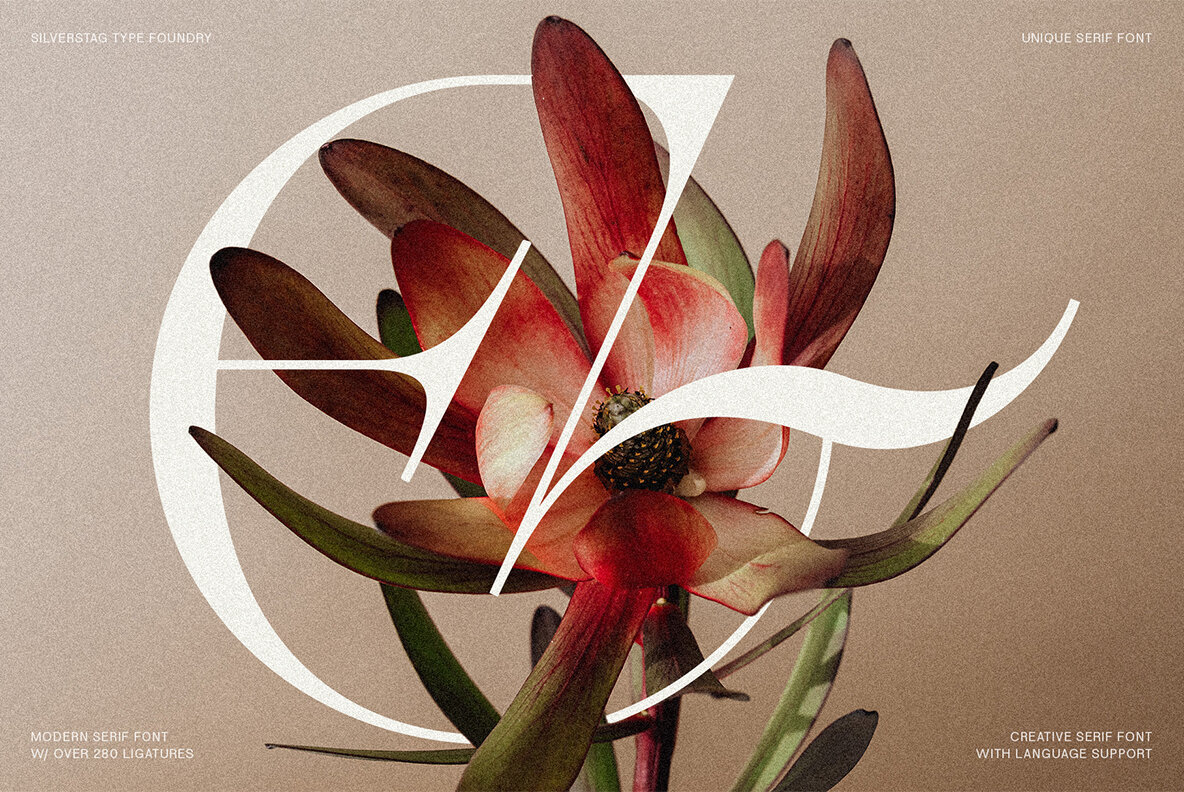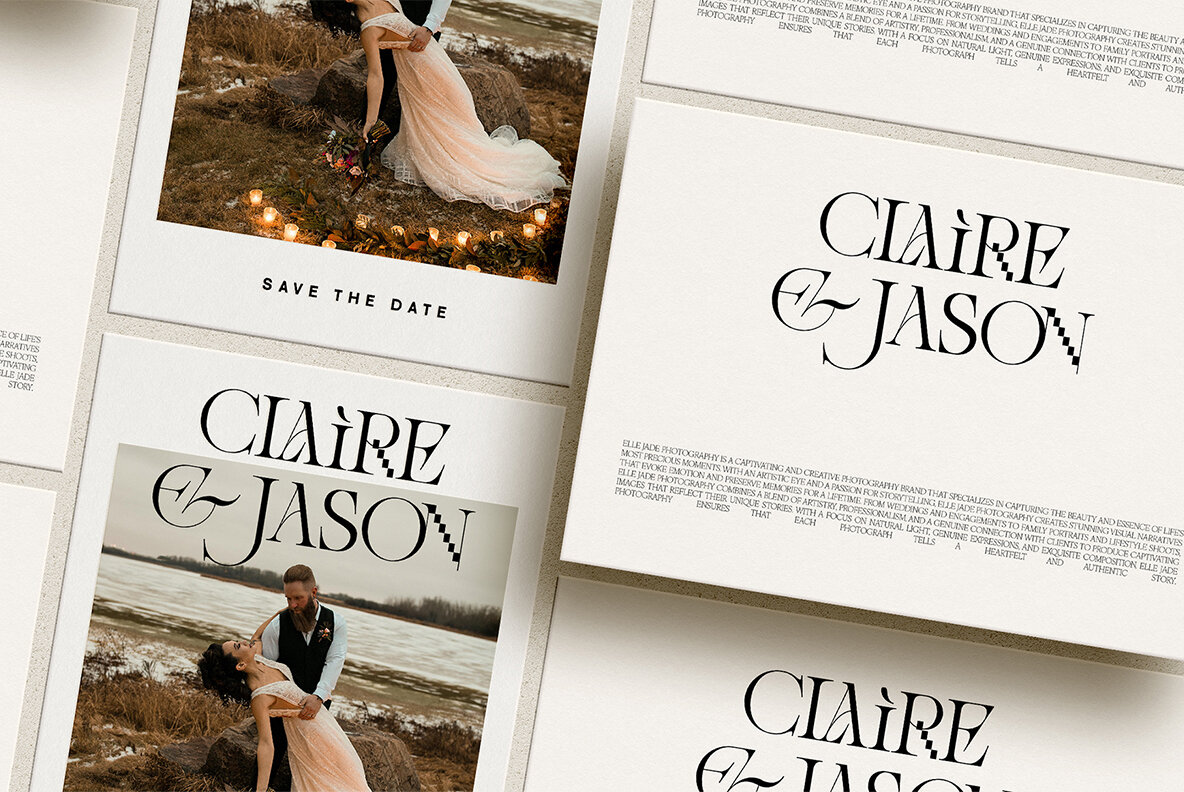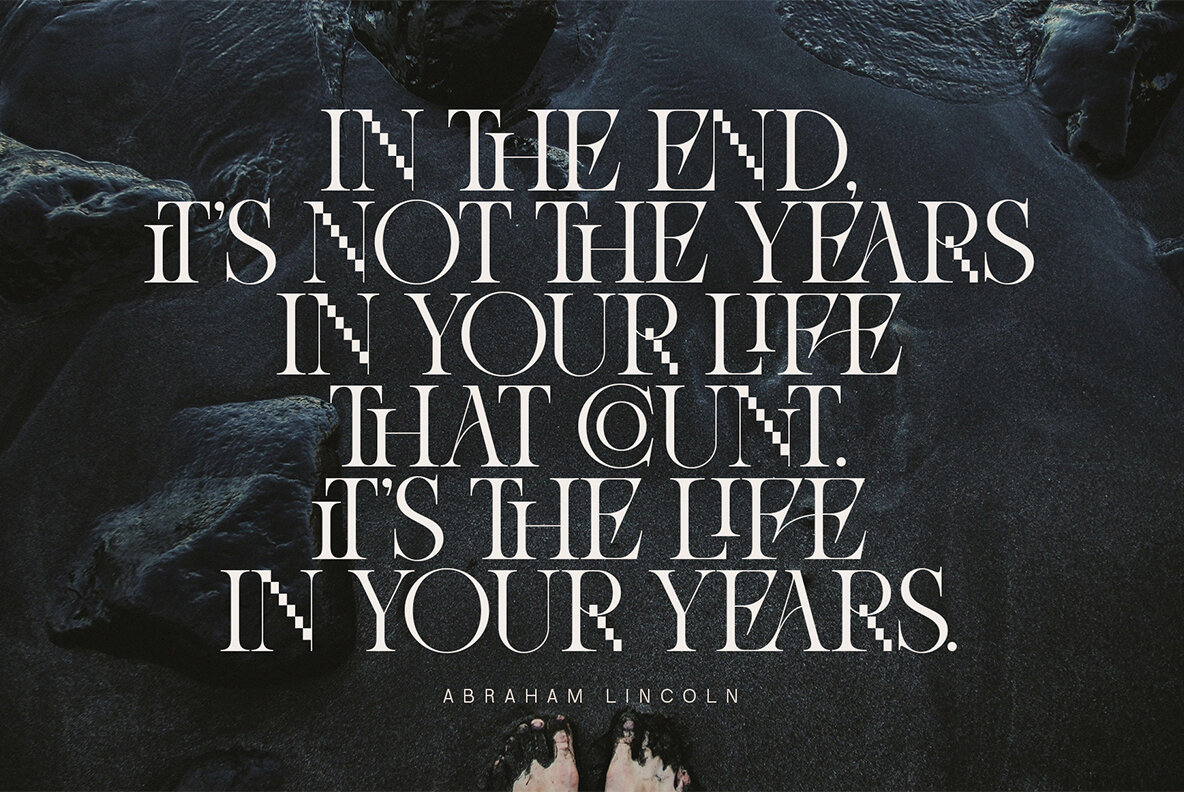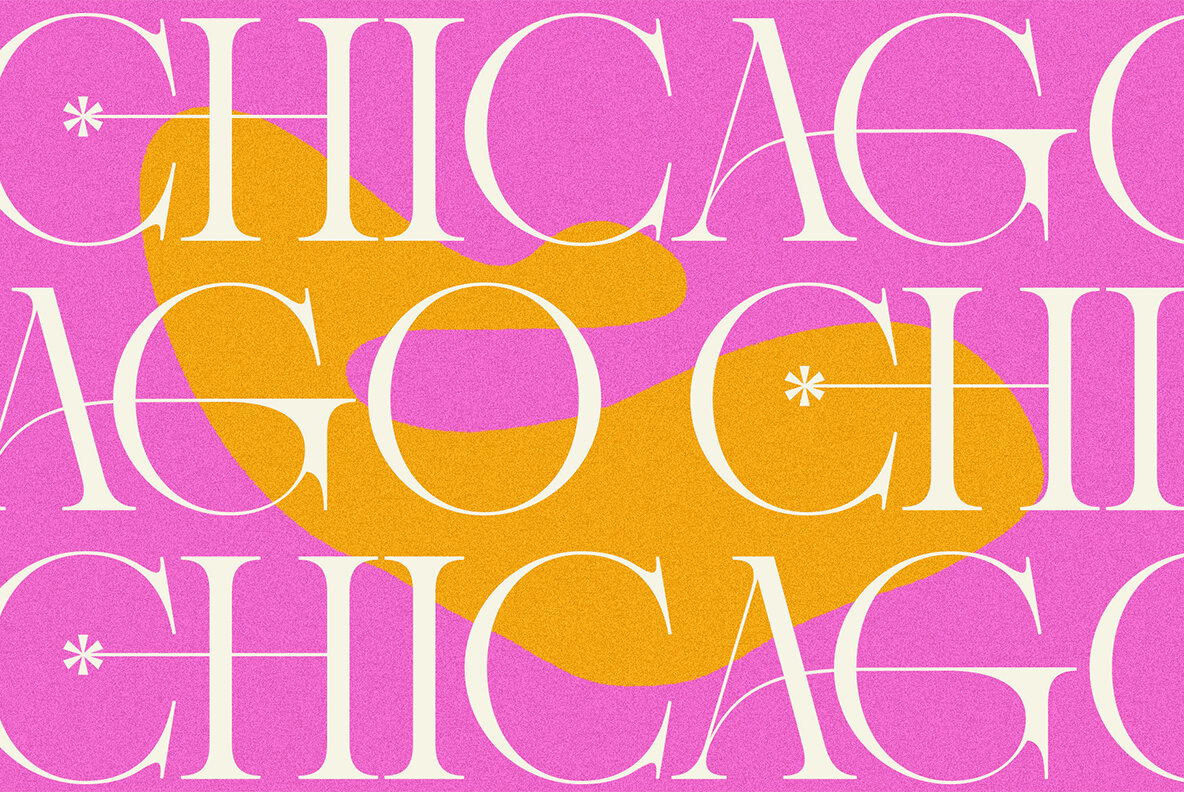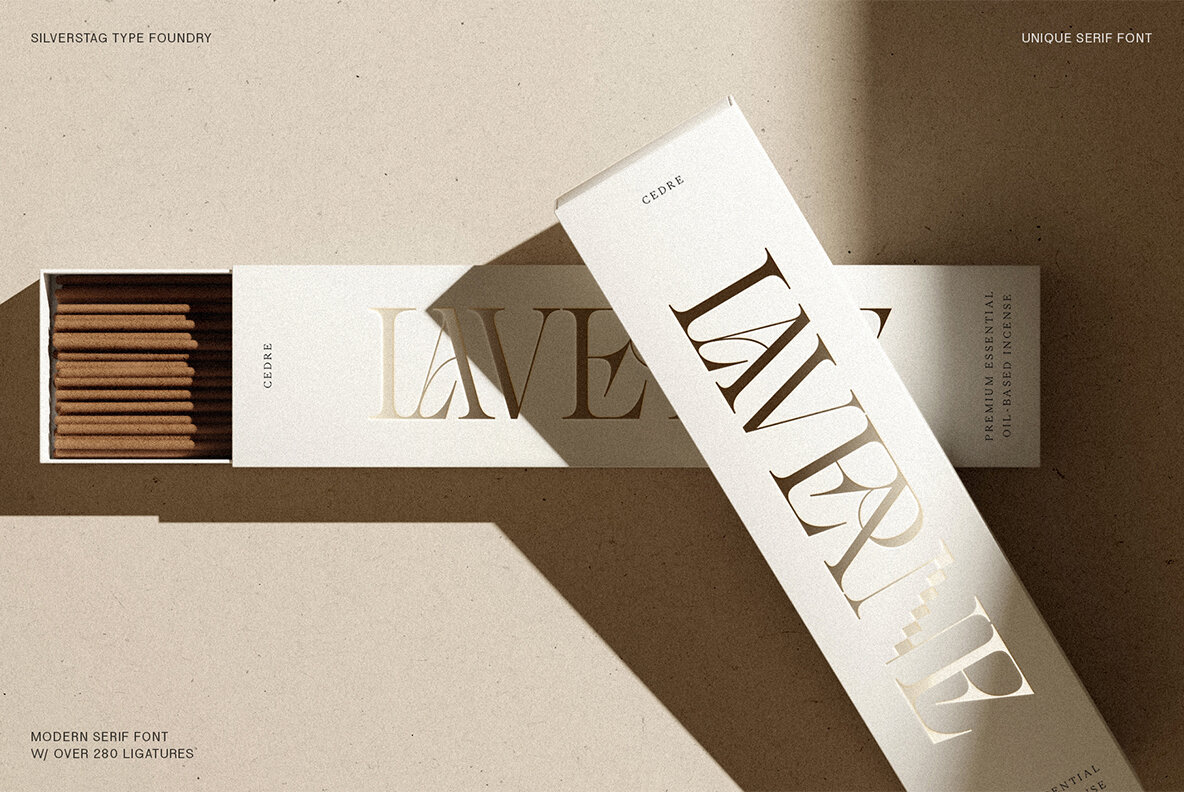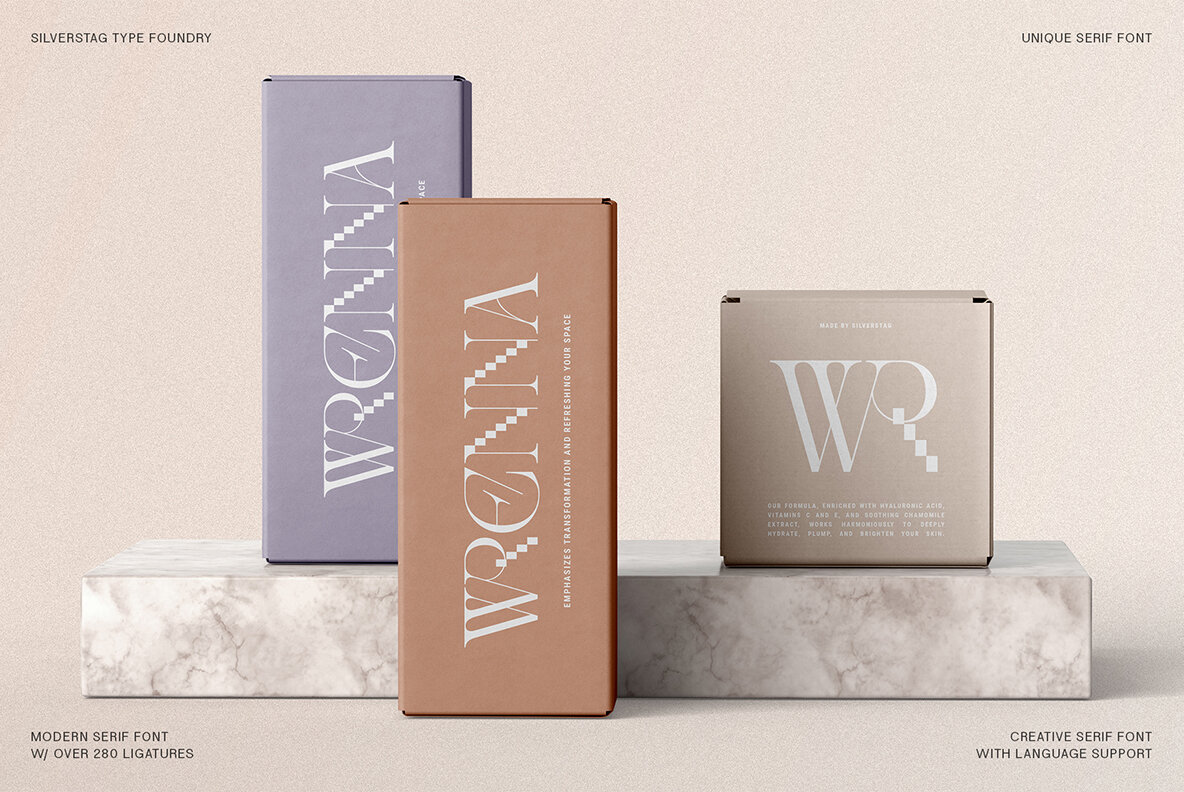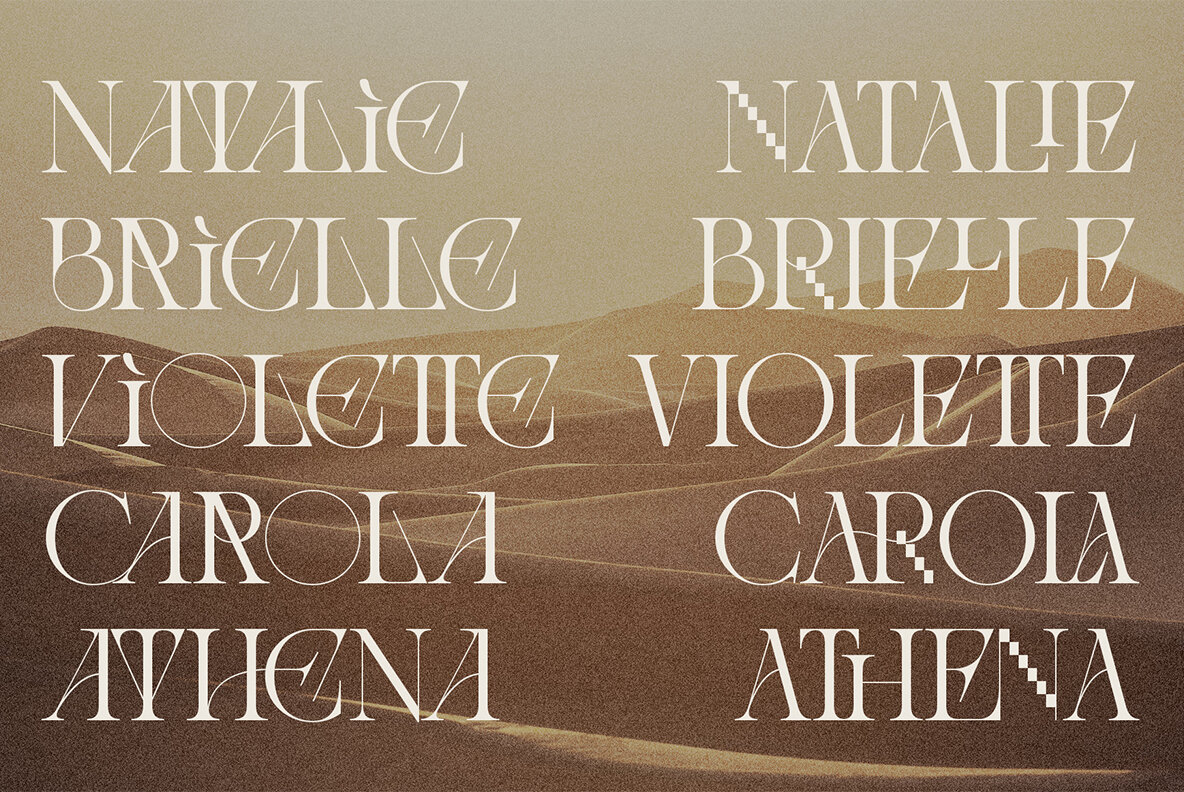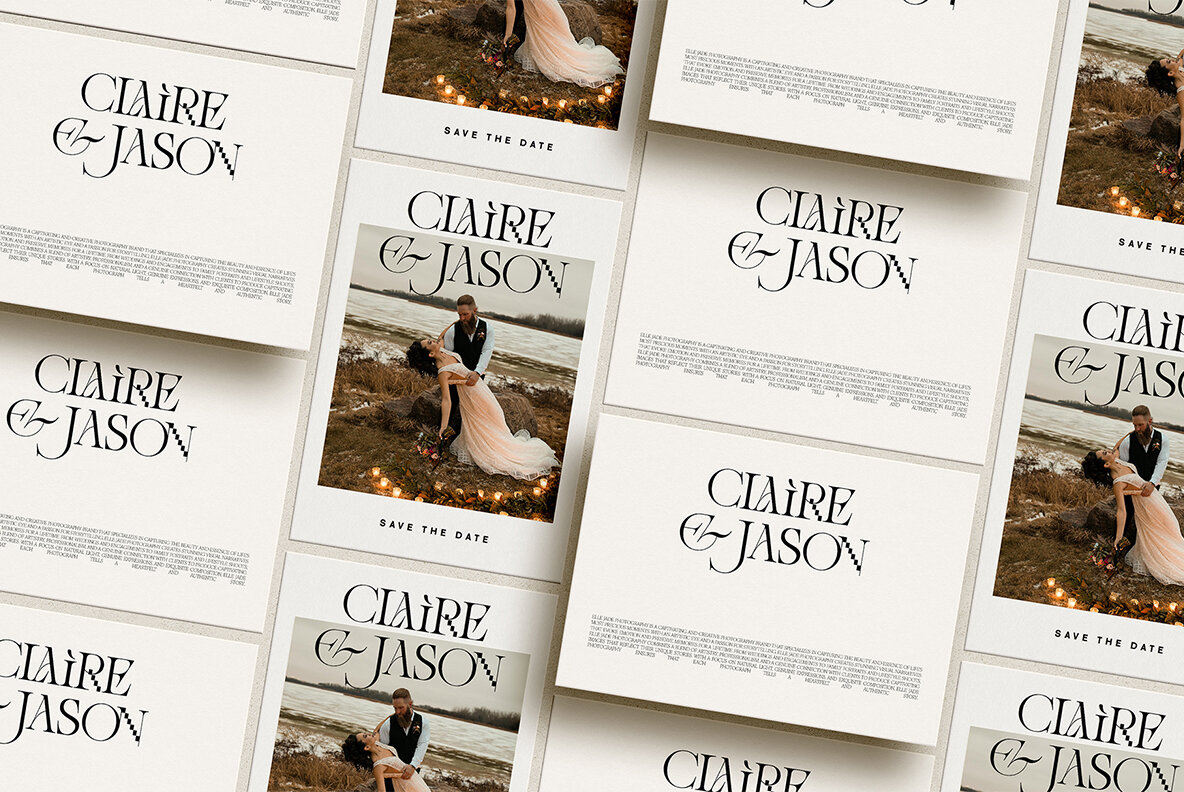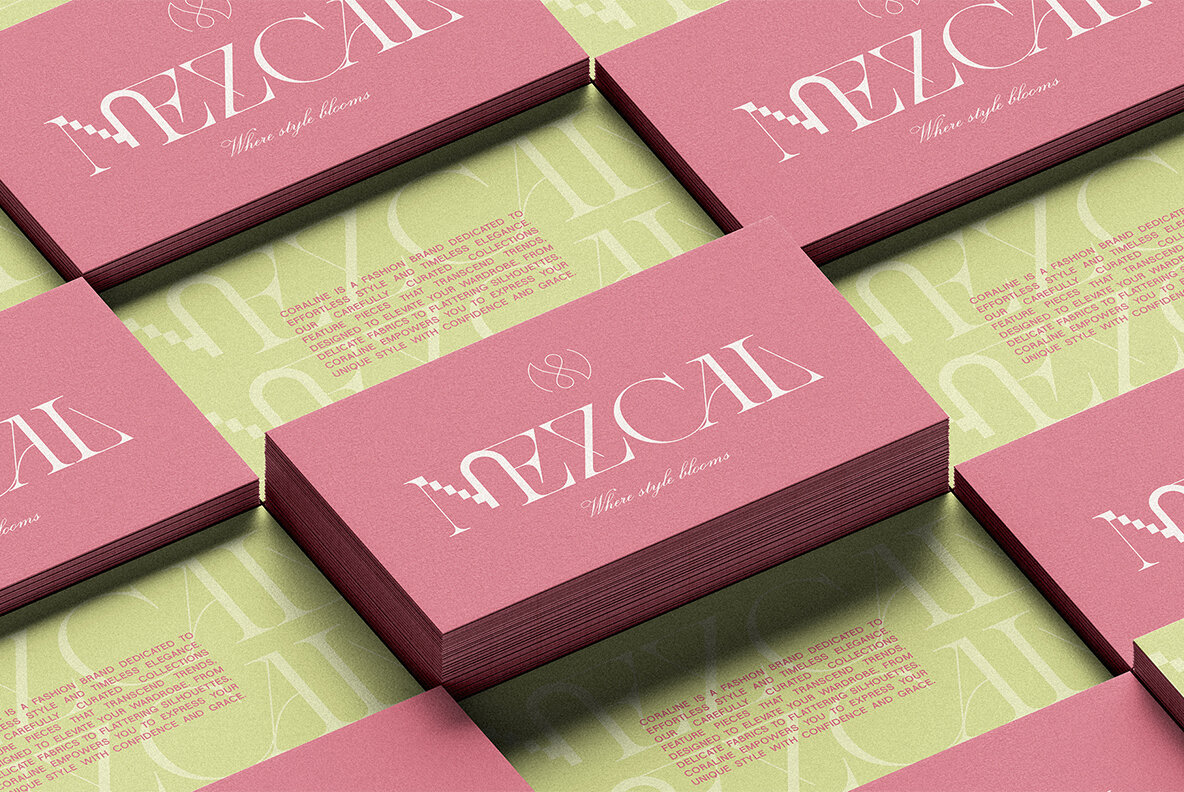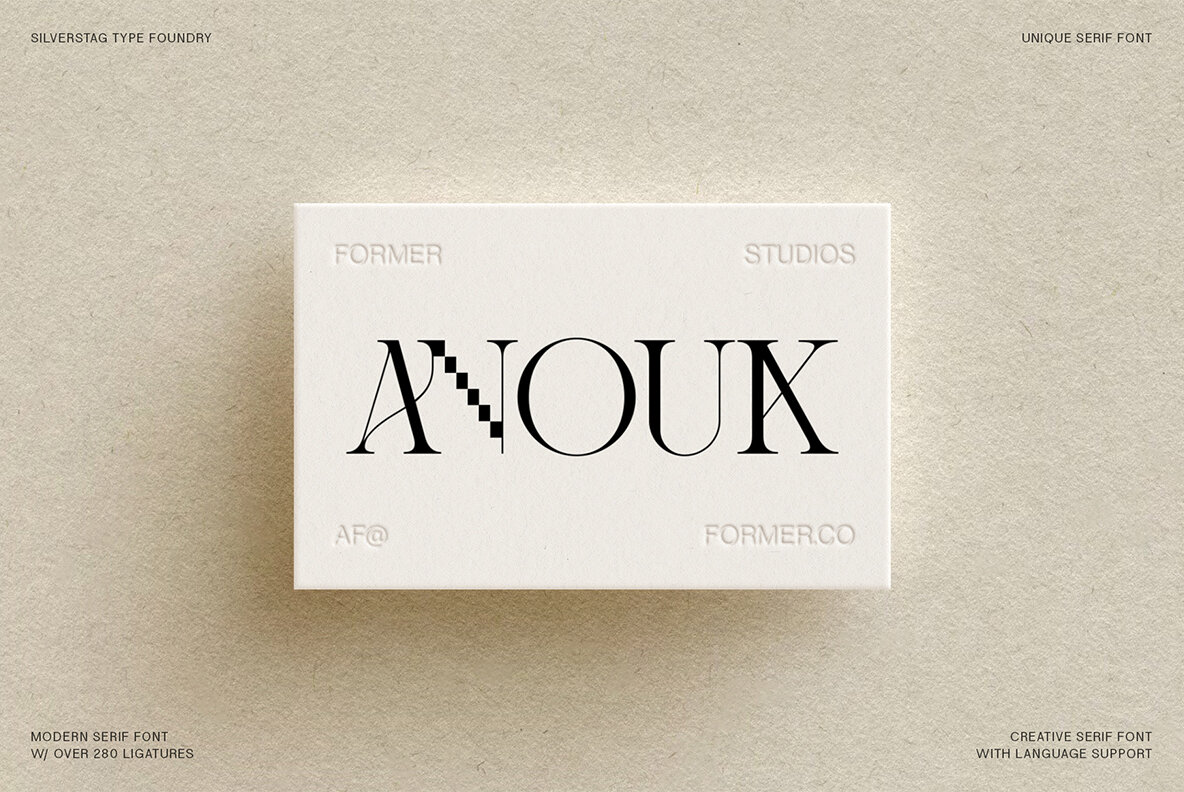
Amelie Fierce Font
Amelie Fierce Regular
Introducing Amelie Fierce: Where Editorial Elegance Meets Pixelated Edge Embrace the unexpected with Amelie Fierce, a modern display serif that shatters the mold with over 280 unique ligatures. This typeface embodies a captivating blend of classic refinement and cutting-edge attitude. Think sleek serifs, graceful curves, and a dash of pixelated rebellion. It's a font that demands attention while retaining an air of timeless sophistication. Key Features to Unleash Your Creativity: Where Amelie Fierce Shines: